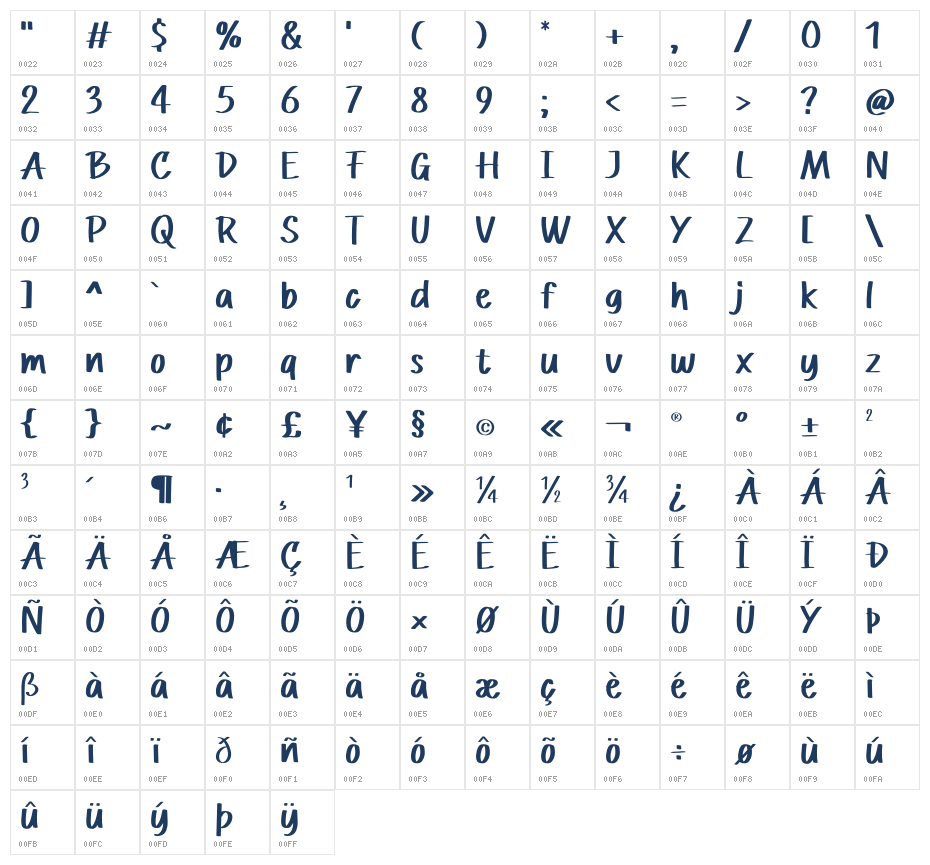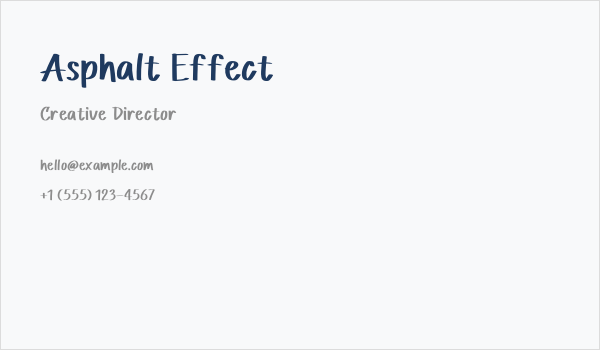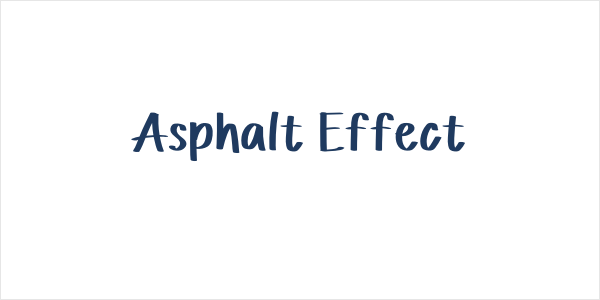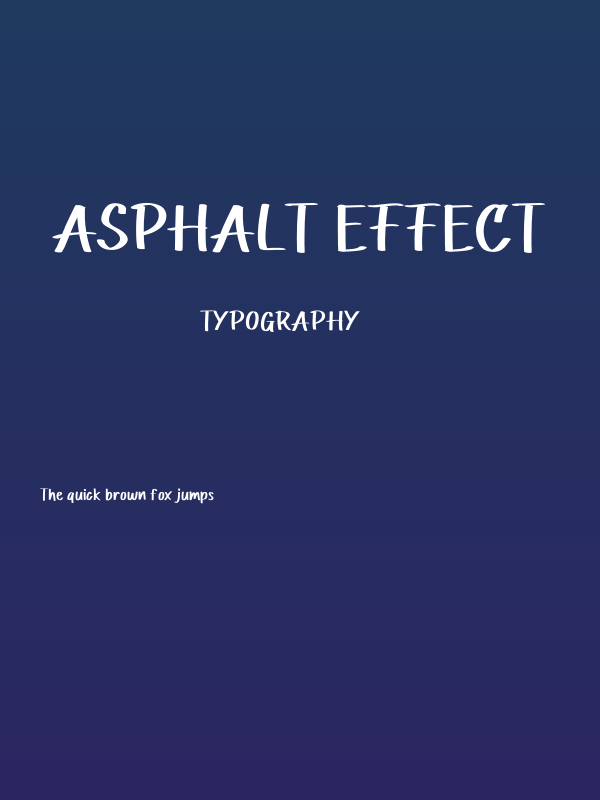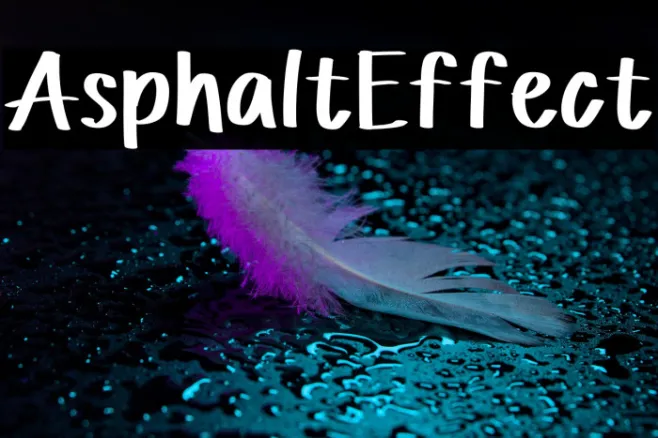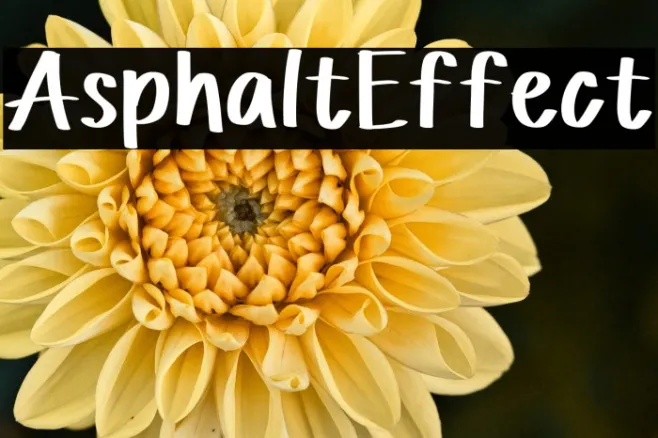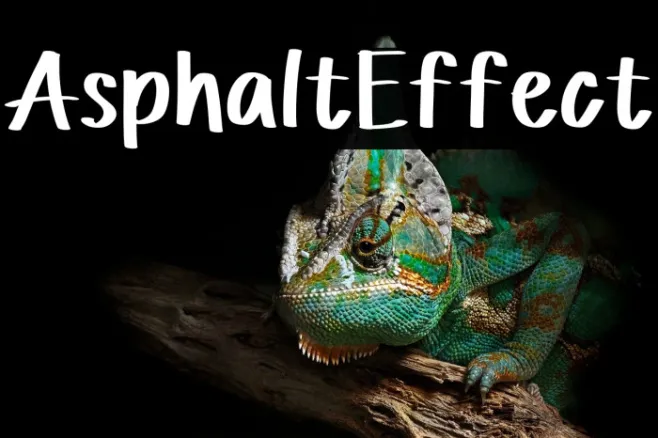
Asphalt Effect Font
Asphalt Effect Description
A playful, handwritten style font with a casual and friendly appearance, featuring slightly irregular strokes and a smooth flow.
| Overall Style | Casual, Playful, Friendly |
| Use Case | Headlines, Body text, Logos, Invitations, Children's materials |